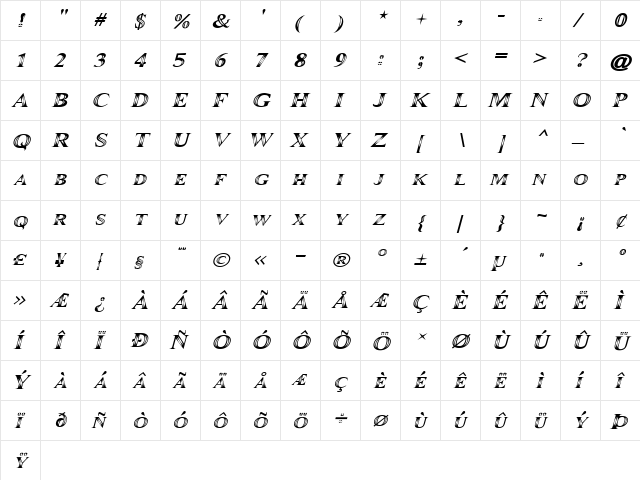
Maranallo Italic Regular
Design Context for Maranallo Italic Typeface
Maranallo Italic is a composed and adaptable typeface that performs quietly and consistently across a wide range of design contexts. Its italic angle brings a sense of urgency and motion to the letterforms.
Pro Tip: Use Maranallo Italic for emphasis, pull quotes, and subheadings where its slanted energy can add rhythm to the layout.